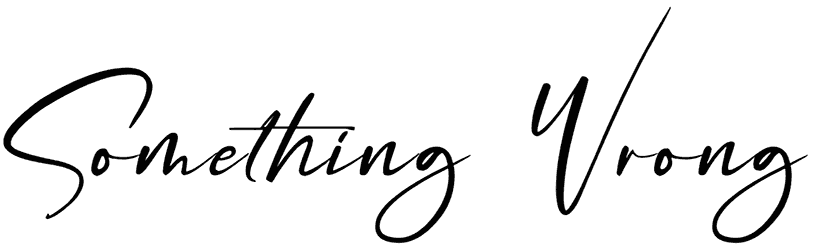
Something Wrong Font
To display your following project, you can create a unique face with stylish and modern words. This handwritten font is able to be harmonized with any formal or informal project with various subjects. As a signature font, Something Wrong can be an ace pickup for many designs, namely business cards, branding, planners, wedding invitations, and more, despite its illegible style.